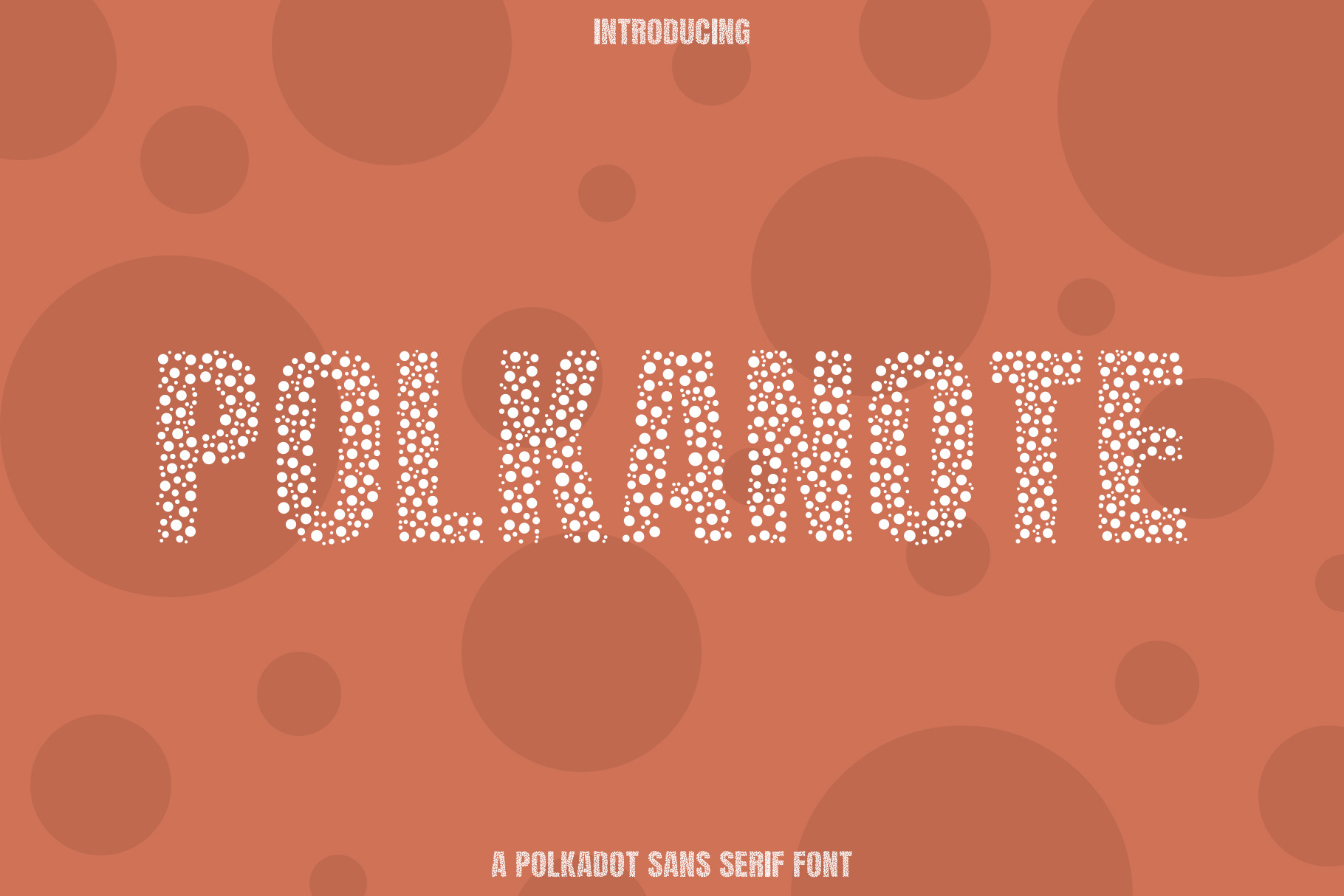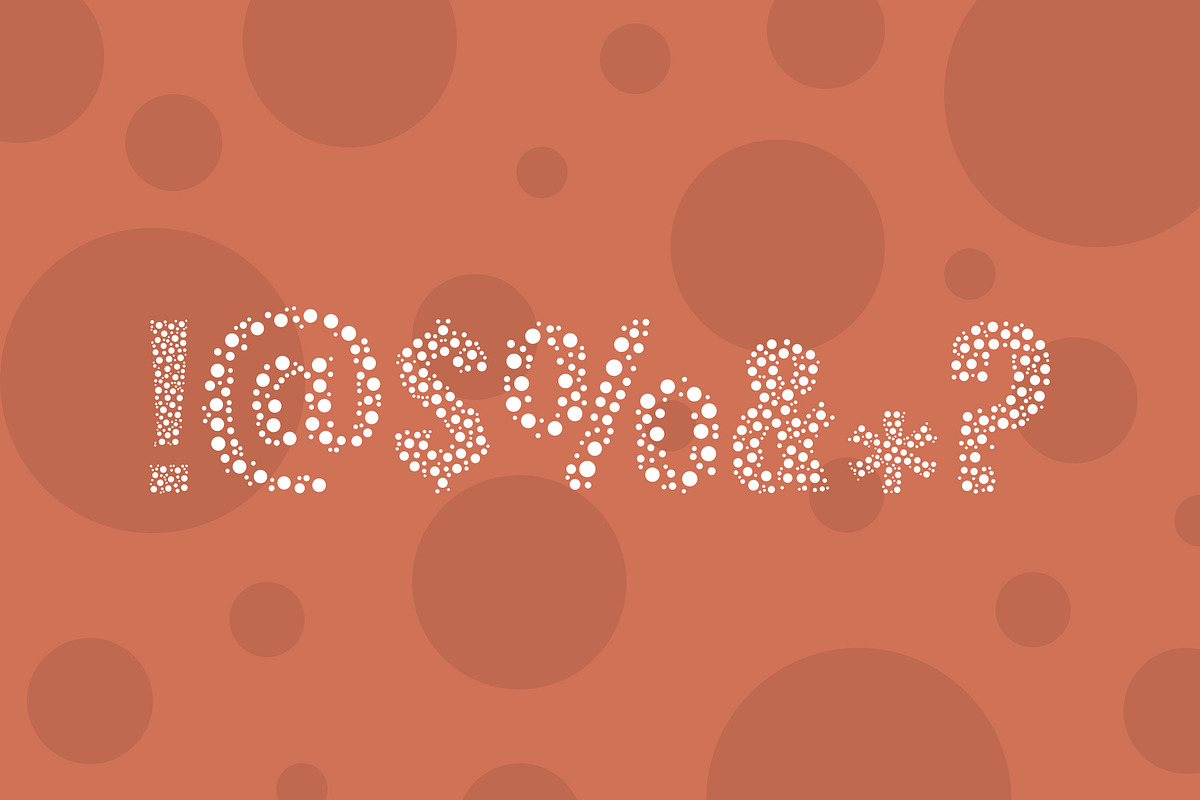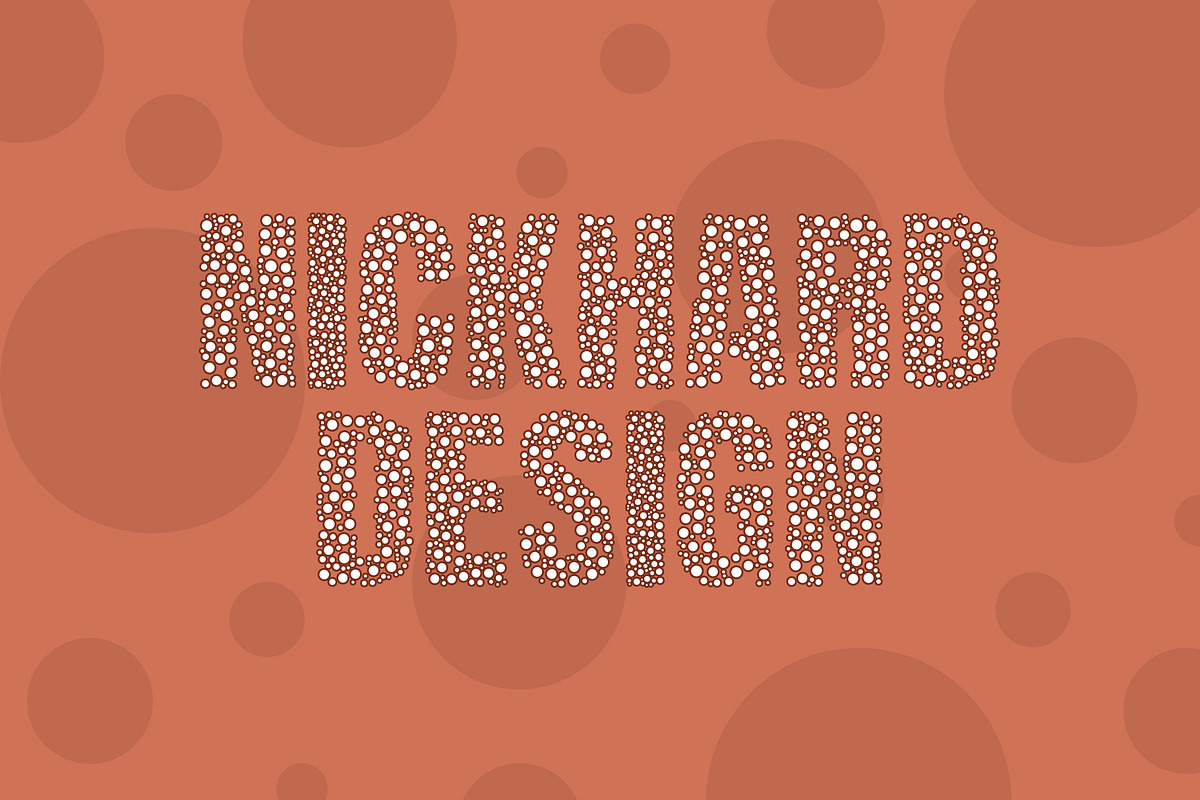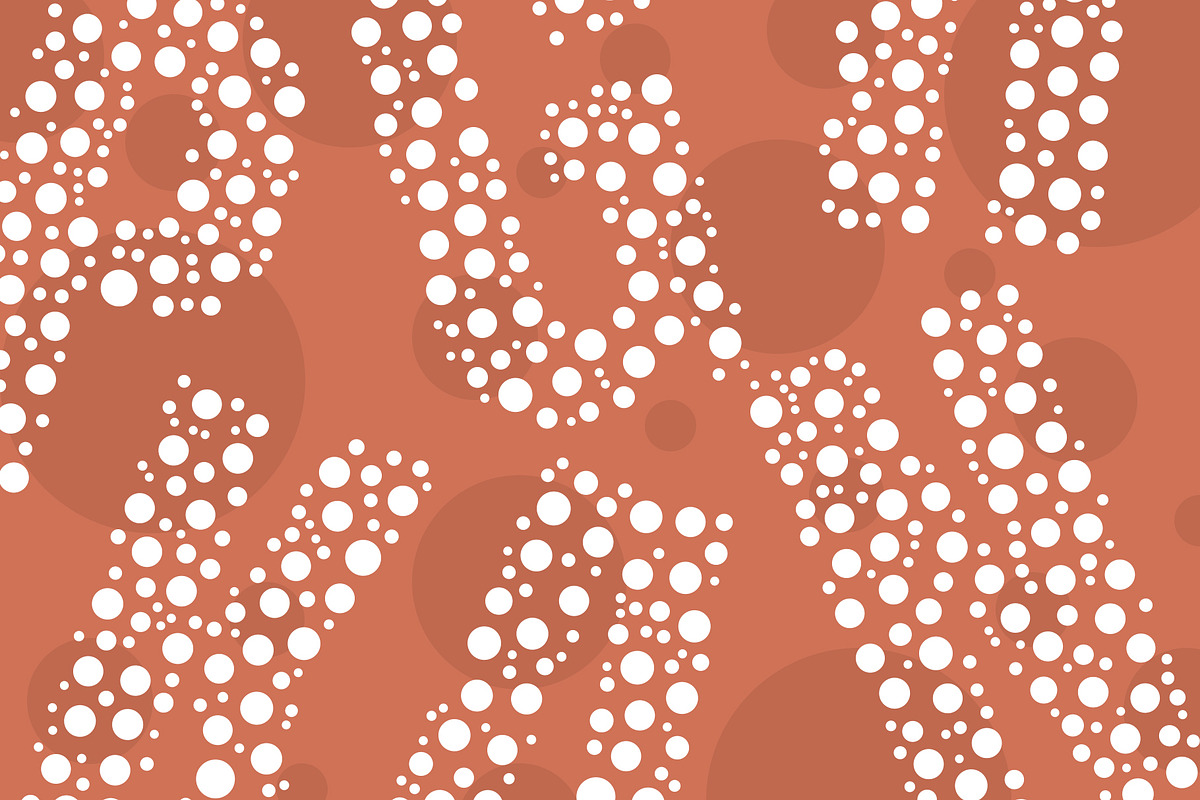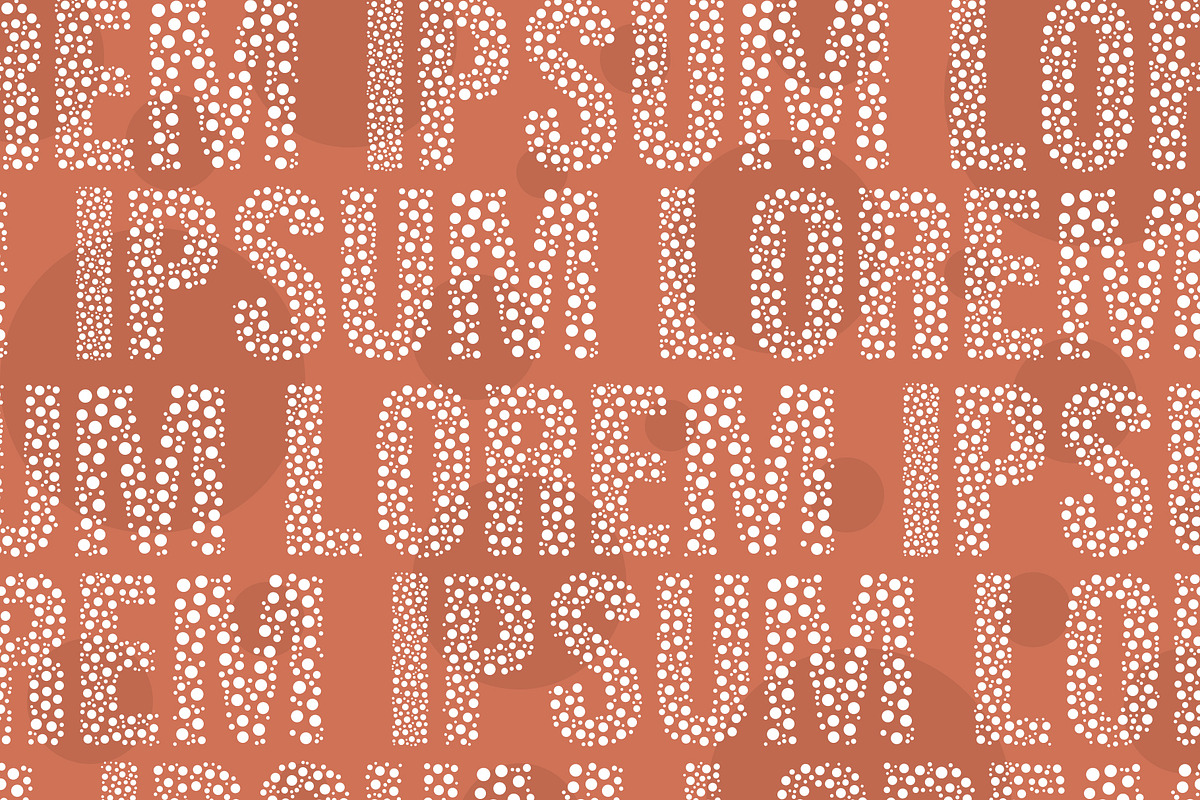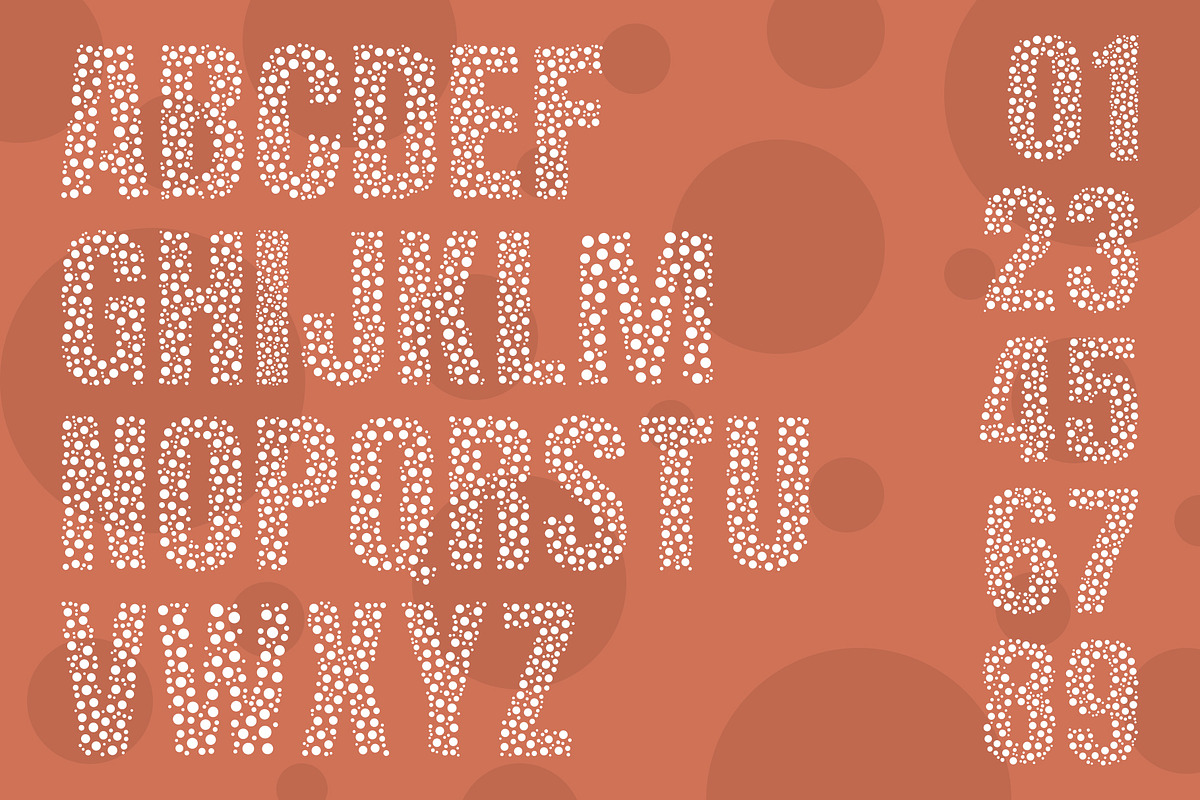
Font Polkanote
INTRODUCTION
POLKANOTE
Polkanote is a combination of circles that form each letter. Recommend for branding projects, website fonts, poster fonts, magazine fonts and cover book fonts. Minimalist style.